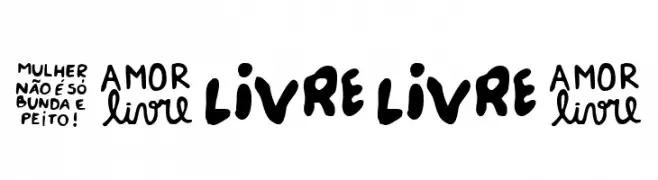
A bold, oblique serif font with a modern-antique blend.
A bold, handwritten font with a playful and dynamic style.
A modern, dotted font with a playful and sophisticated style.
A bold, playful font with a hand-drawn, irregular style.
A decorative illustrated font featuring cangaceiro figures for each character.
A bold, italicized font with a dynamic, hand-drawn style and strong visual impact.
A bold, hand-drawn font with a dynamic, graffiti-like style.
A bold, hand-drawn font with a dynamic and expressive style.
A bold, hand-drawn font with a playful and dynamic style.
A bold, handwritten font with a lively and informal style.